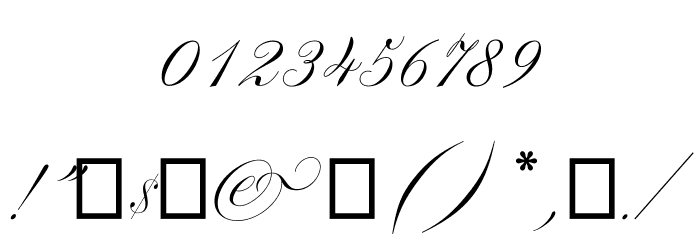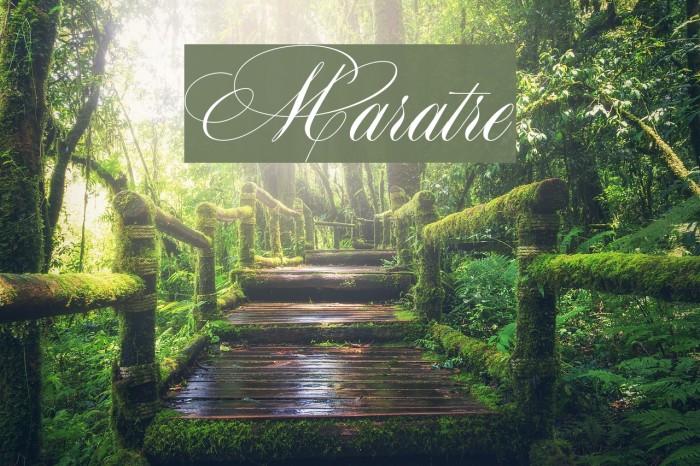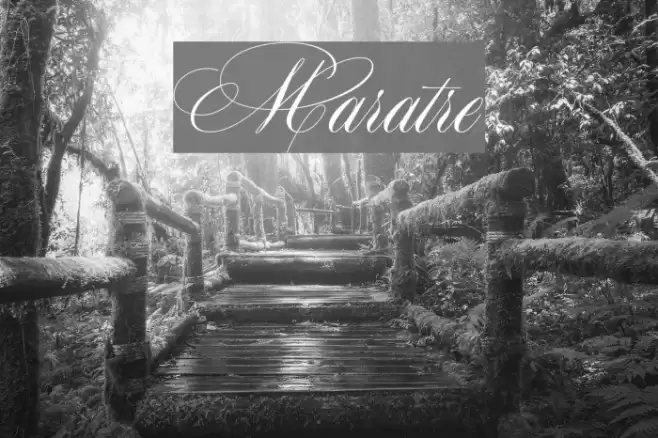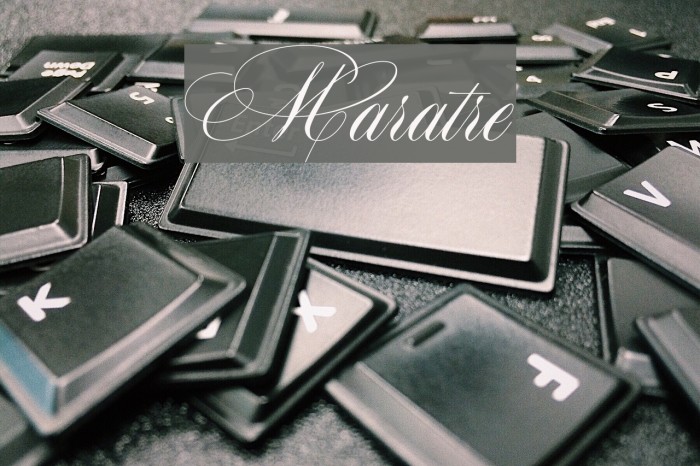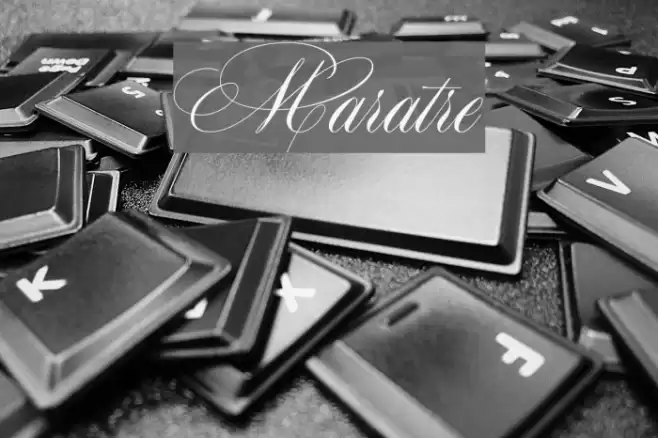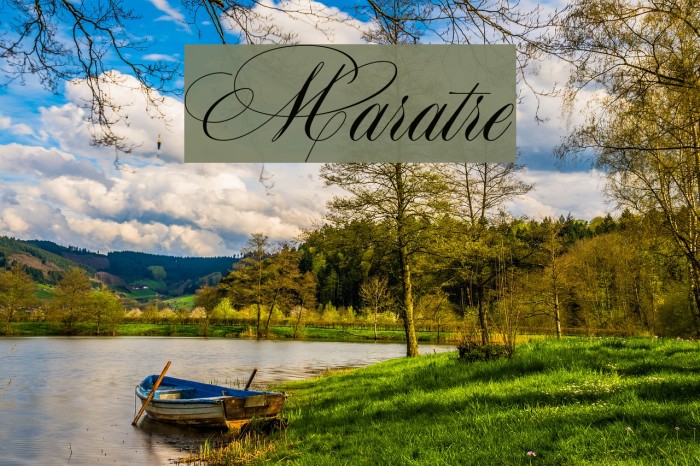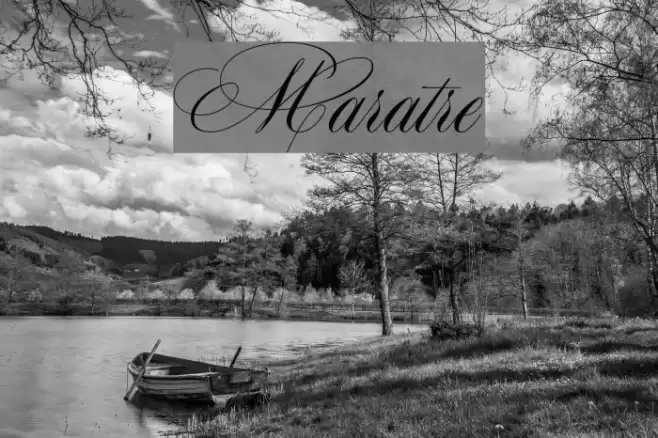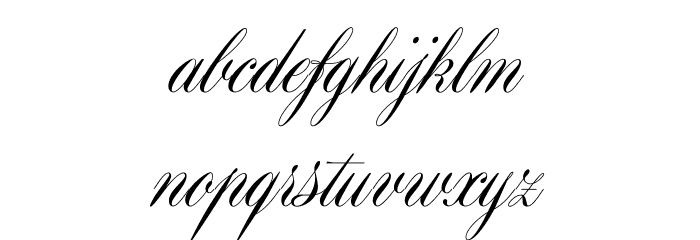
Maratre Font
This elegant script font exudes sophistication and grace, characterized by its flowing, cursive letterforms that mimic the fluidity of handwritten calligraphy. The uppercase letters are particularly ornate, featuring elaborate swashes and flourishes that add a touch of luxury and refinement. The lowercase letters maintain a consistent slant, contributing to the font's overall cohesive appearance. The numerals are designed with a similar elegance, ensuring they complement the alphabetic characters seamlessly. Special characters, such as punctuation marks and symbols, are also crafted with intricate details, enhancing the font's decorative appeal. This font is ideal for projects that require a touch of elegance and class, such as wedding invitations, formal event programs, or high-end branding materials.
An elegant script font with flowing, cursive letterforms and ornate flourishes.
• Proposed Projects: Wedding invitations, formal event programs, luxury branding materials.
• Use Case: Logos, Invitations, Decorative text